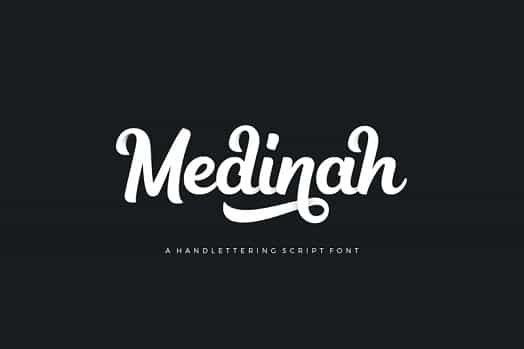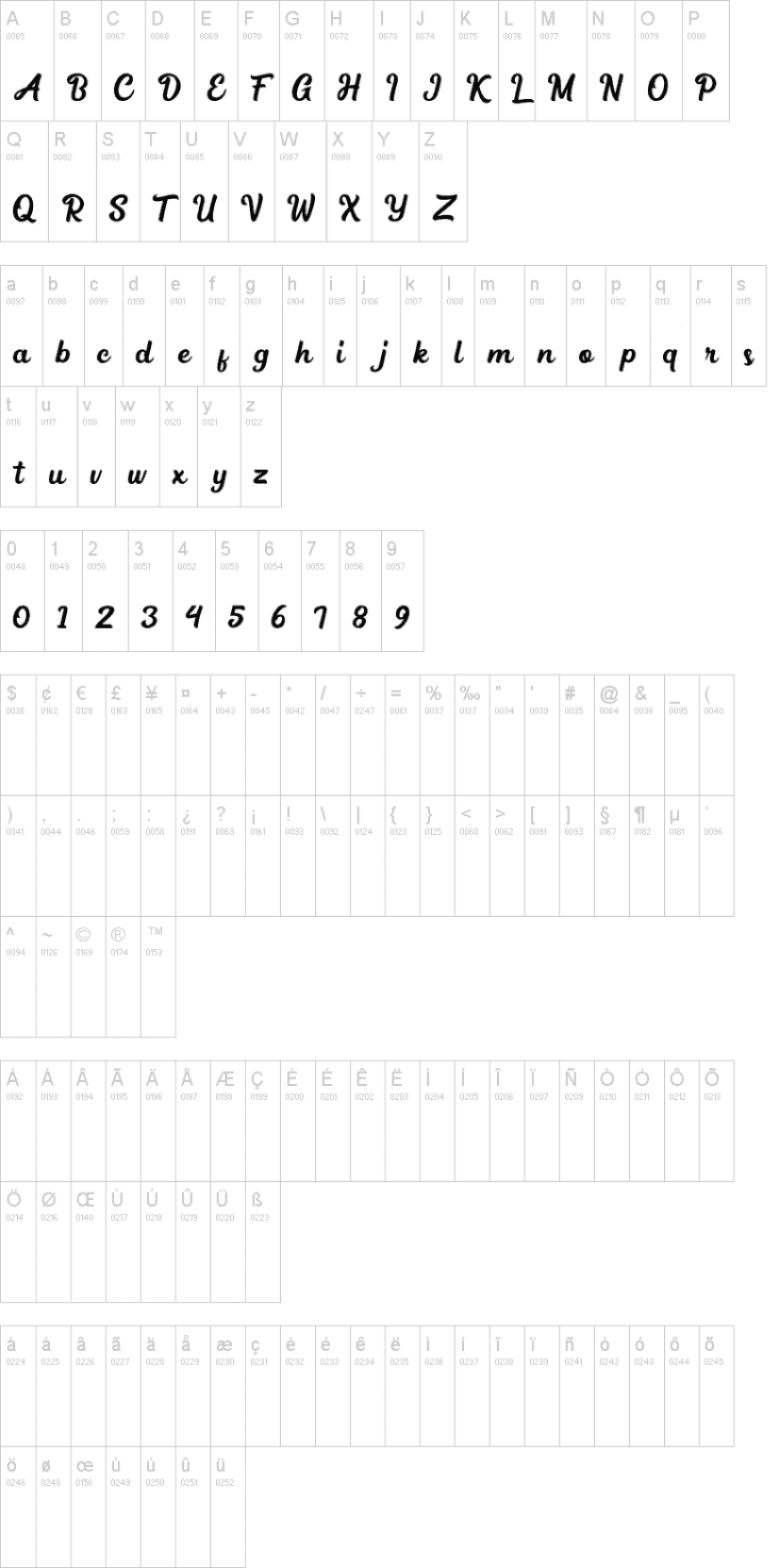
From the above information one can understand that Medinah is a elegant and daring type face which can be implemented in several designs. This font will leave you breathless, and as a result give all your designs the breath that it takes for designs to stand out from a crowd.